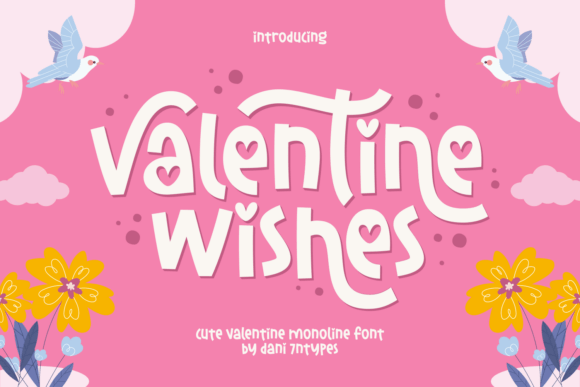
Valentine Wishes: A Monoline Typeface for Heartfelt Design
In the expansive world of digital typography, few categories capture the specific emotional resonance of a holiday quite like romantic and seasonal fonts. Among these, Valentine Wishes has emerged as a distinctive choice for designers seeking to convey warmth, playfulness, and affection through their visual communication. Unlike rigid serif or stark sans-serif typefaces that prioritize pure utility, this font is engineered to spread love, warmth, and sweet feelings in every letter. It represents a convergence of technical precision and emotional storytelling, making it an invaluable asset for professionals and hobbyists alike who wish to infuse their projects with a genuine sense of connection.
The Anatomy of a Romantic Typeface
Understanding what makes Valentine Wishes effective requires a closer look at its structural design principles. At its core, the font utilizes a monoline style, meaning the stroke width remains consistent throughout each character. This uniformity provides a clean, modern aesthetic that ensures high readability even at smaller sizes. However, the true character of the typeface lies in how it deviates from strict geometric perfection to introduce personality.
The soft curves inherent in the letterforms are not merely decorative; they mimic the fluidity of hand-drawn calligraphy without sacrificing the scalability required for digital use. These gentle transitions between strokes create a visual rhythm that feels organic and approachable. Furthermore, the inclusion of charming heart details serves as a subtle yet powerful semantic cue. Whether integrated into the descenders of letters like 'g' or 'y', or used as bullet points and ligatures, these elements reinforce the theme of romance immediately upon first glance.
This balance between a friendly shape and a clean structure is critical. Many decorative fonts become illegible when scaled down or used in long paragraphs. Valentine Wishes avoids this pitfall by maintaining open counters and clear apertures. The result is a typeface that feels fun and decorative while remaining accessible to a broad audience. This dual nature allows it to function effectively as both a display font for headlines and a body font for short, impactful messages.
Emotional Resonance in Typography
Typography is often described as the "voice" of a brand or message. When a designer chooses a font, they are selecting a tone of voice before a single word is read. Valentine Wishes speaks with a cozy, cheerful, and heartfelt vibe. In a market saturated with generic clip-art and overused stock imagery, using a typeface that carries intrinsic emotional weight can elevate a project significantly.
The psychological impact of seeing soft curves and heart motifs triggers associations with comfort and care. For brands looking to humanize their image, this font acts as a bridge between corporate messaging and personal sentiment. It suggests that the sender values the recipient's feelings, transforming a standard transaction or greeting into a moment of shared joy. This emotional connectivity is why the font is so well-suited for projects that need to feel personal rather than mass-produced.
Practical Applications Across Industries
The versatility of Valentine Wishes extends far beyond the traditional scope of February 14th celebrations. While its primary association is with Valentine’s Day, the underlying design principles make it applicable to a wide array of creative fields. Professionals across various sectors are discovering new ways to leverage its unique characteristics to enhance their visual identity.
Celebration and Stationery Design
For graphic designers specializing in print media, this font is an ideal tool for creating Valentine cards, wedding invitations, and anniversary announcements. The monoline style translates exceptionally well to physical mediums such as engraving, embossing, and foil stamping. Because the stroke width is consistent, it does not break up easily during the printing process, ensuring that the final product looks crisp and professional.
When designing wedding invitations, the font’s friendly shapes help set a welcoming tone for the event. It moves away from the formality of traditional blackletter or heavy serifs, suggesting a celebration that is relaxed, joyful, and centered on the couple's happiness. Similarly, for greeting cards intended for friends and family, the playful nature of the typeface encourages a more casual and intimate exchange of sentiments.
Digital Marketing and Social Media
In the realm of digital marketing, attention spans are short, and visual hooks are essential. Social media posts require graphics that stop the scroll. Valentine Wishes offers a distinct visual signature that stands out against the backdrop of standard system fonts used in most social platforms. Brands can utilize it for Instagram stories, Facebook cover photos, and Pinterest pins to highlight special promotions or share inspirational love quotes.
The font’s clean structure ensures that text overlays remain legible even when placed over busy background images. Marketers can pair it with bold, solid colors or soft pastels to create a cohesive brand aesthetic for seasonal campaigns. Its ability to convey a "sweet feeling" helps businesses build rapport with their audience during key moments of the year, fostering loyalty through positive emotional engagement.
Branding and Packaging
Product packaging is often the first physical interaction a consumer has with a brand. For companies selling confectionery, cosmetics, or lifestyle goods, the right typography can influence purchasing decisions. Valentine Wishes brings a touch of love and happiness to packaging designs, making products feel like gifts even before they are unwrapped.
Consider a small-batch chocolate maker or a boutique candle shop. Using this font on labels or boxes signals quality and care. It aligns the product with concepts of self-care and indulgence. Moreover, because the font is easy to read, it maintains compliance with labeling regulations while still delivering a strong stylistic statement. The decorative elements add a layer of sophistication that elevates the perceived value of the item.
Integrating Valentine Wishes into Creative Workflows
Successfully implementing a specialized font like Valentine Wishes requires thoughtful consideration of pairing and context. While the font is robust enough to stand alone, it often shines brightest when balanced with complementary typefaces. Designers should aim for contrast in weight and style to create a harmonious layout.
A practical approach involves pairing Valentine Wishes with a neutral, geometric sans-serif for body copy. This combination allows the romantic flair of the monoline font to dominate headlines and pull-quotes without overwhelming the reader. For example, a wedding invitation might use the font for the couple's names and the date, while a simple, elegant serif handles the logistical details like time and location.
Furthermore, color selection plays a pivotal role in maximizing the font's potential. While red and pink are obvious choices, experimenting with softer hues like blush, lavender, or even warm golds can provide a fresh take on the romantic theme. The clean lines of the font allow it to adapt to various color palettes, making it suitable for both traditional and modern design aesthetics.
Accessibility and Readability Considerations
As with any decorative typeface, accessibility must be a priority. While Valentine Wishes is designed to be readable, it is best utilized for short bursts of text rather than long-form content. Designers should avoid using it for dense paragraphs where legibility could suffer. Instead, reserve it for titles, headers, captions, and emphasis points where its personality can be fully appreciated without straining the reader's eyes.
Ensuring sufficient contrast between the text and the background is also crucial. Because the font features thin monoline strokes, placing it on a similarly colored or highly textured background can render it invisible. By adhering to standard web accessibility guidelines regarding contrast ratios, creators can ensure that their romantic messages are inclusive and reachable by everyone.
The Evolution of Seasonal Typography
The popularity of fonts like Valentine Wishes reflects a broader trend in the design industry toward authentic and emotionally intelligent branding. Consumers today are increasingly drawn to brands that show personality and vulnerability. They prefer designs that feel handmade and personal over those that appear coldly corporate.
This shift has led to a surge in demand for typefaces that can bridge the gap between digital efficiency and human warmth. The monoline style, with its roots in brush lettering, perfectly captures this zeitgeist. It suggests effort and care, qualities that are highly valued in an automated world. As creators continue to seek ways to differentiate their work, fonts that offer a unique blend of functionality and emotion will remain at the forefront of design trends.
Whether you are a seasoned graphic designer working on a major rebrand, a small business owner crafting your next holiday campaign, or an educator creating engaging materials for students, Valentine Wishes offers a versatile solution. It empowers creators to make their messages stand out beautifully, ensuring that the sentiment behind the words is matched by the elegance of the presentation. In a world full of noise, a font that whispers with charm and clarity is a powerful tool for connection.